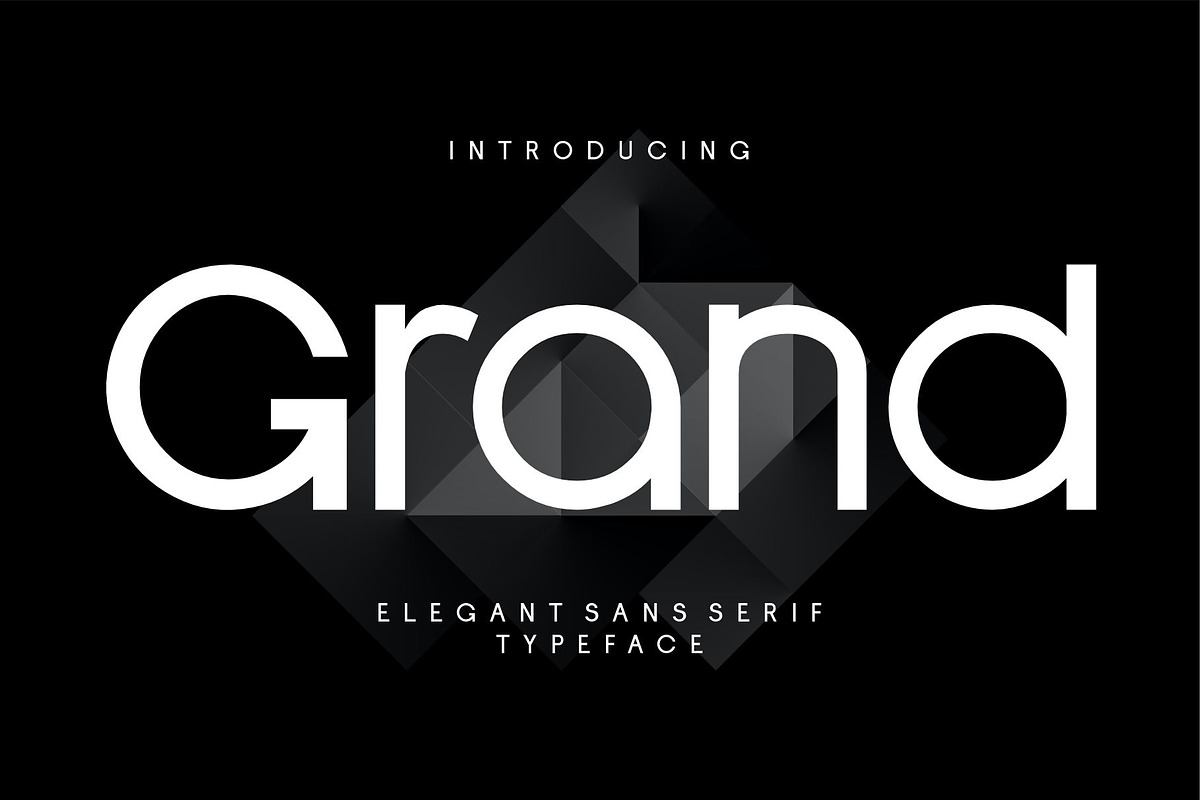
Grand Elegant Sans Serif Typeface Free Download
Introducing the pinnacle of sophistication in typography — Grand Elegant Sans Serif Typeface Free Download. This modern, refined font is designed for creatives who demand class and clarity in their work. With clean lines and a minimal yet powerful aesthetic, Grand is ideal for luxury branding, editorial layouts, corporate design, and high-end web interfaces.
Every letterform in this typeface is carefully crafted to deliver elegance and readability. It includes uppercase and lowercase letters, numerals, punctuation, and multilingual support — giving you all the tools to create stunning, professional-grade designs.